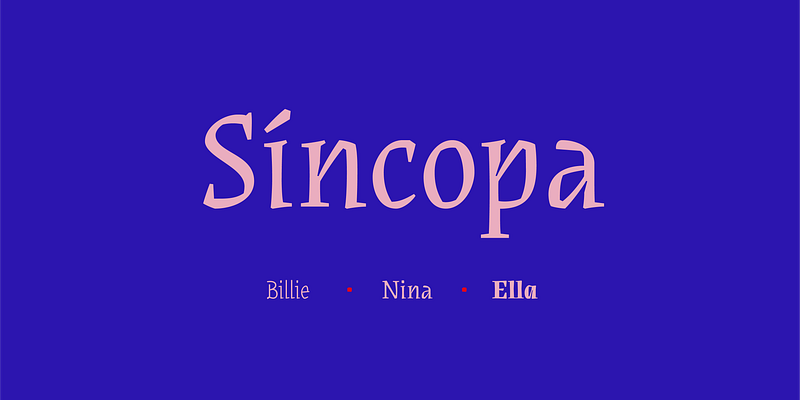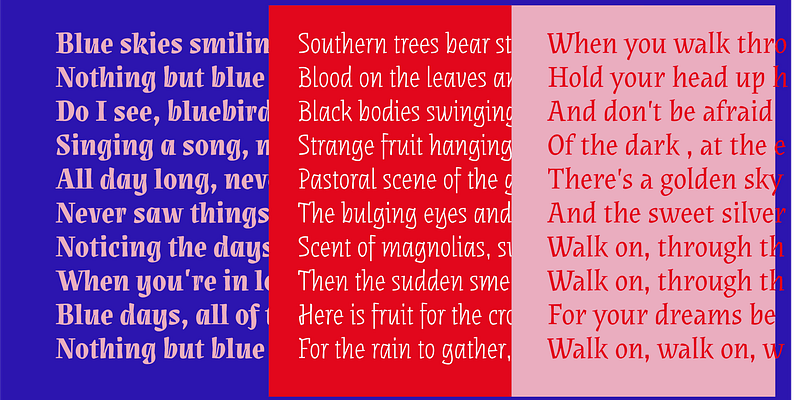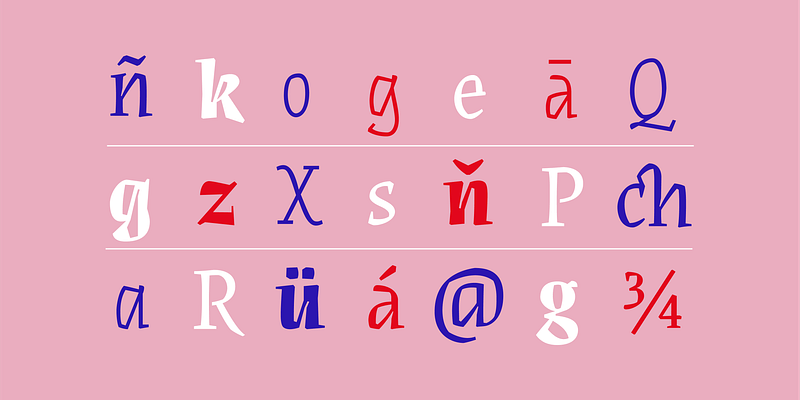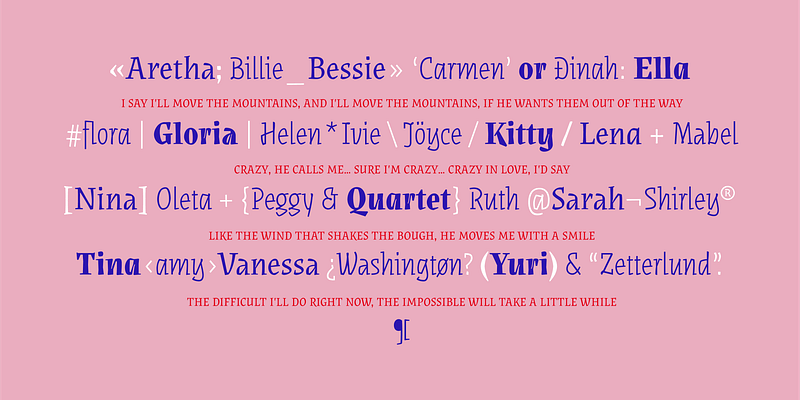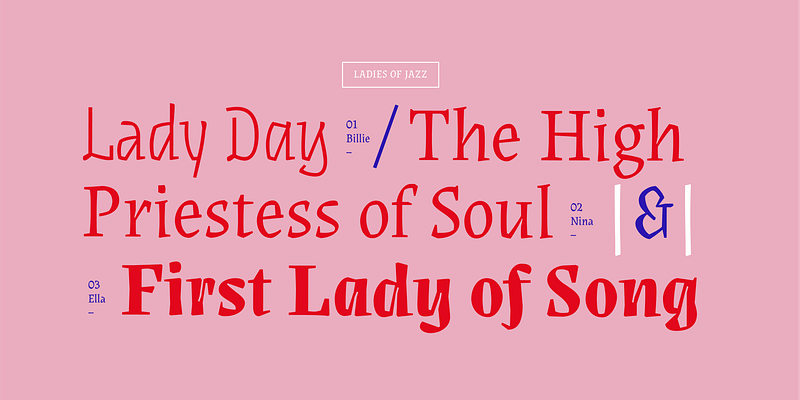
Fer Cozzi
Born in Argentina, Fer Cozzi attended the University of Buenos Aires, where she completed a degree in graphic design and a postgraduate specialization in type design, completing several courses in calligraphy, lettering and type design. Fer currently teaches in the Master of Typeface Design at the University of Buenos Aires.
Fer Cozzi’s type explores rhythms, shapes and strokes where randomness and a not-so-obvious rationality meet. Expert in nothing, with opinions on everything and successful in all kinds of failures. When she’s not drawing letters, she’ probably dancing to the rhythm of 90s pop.